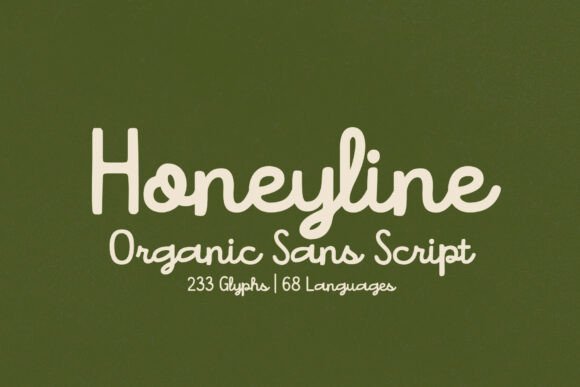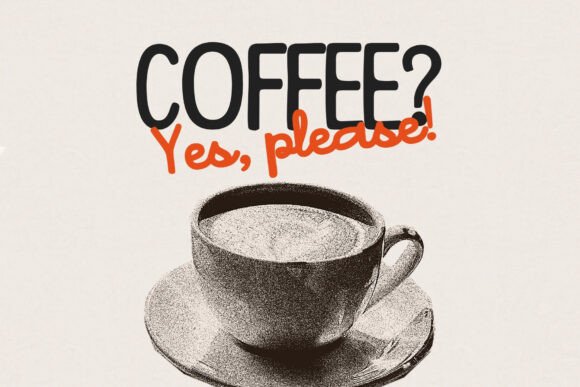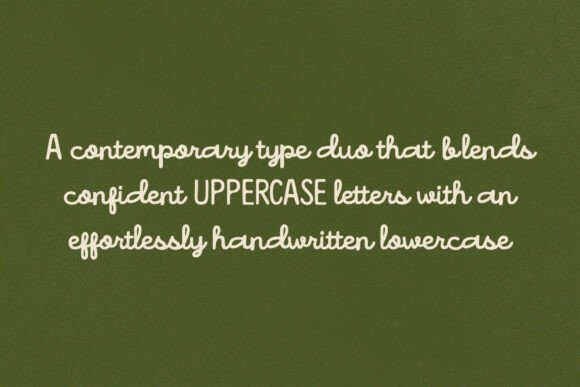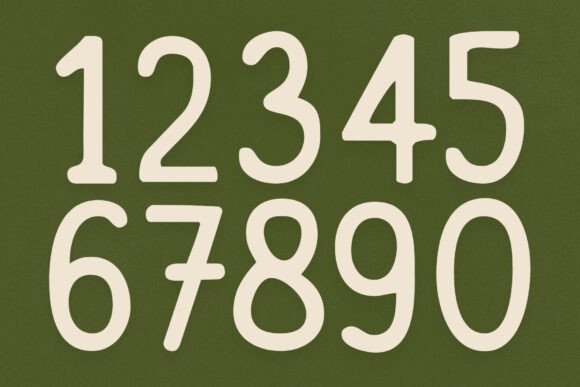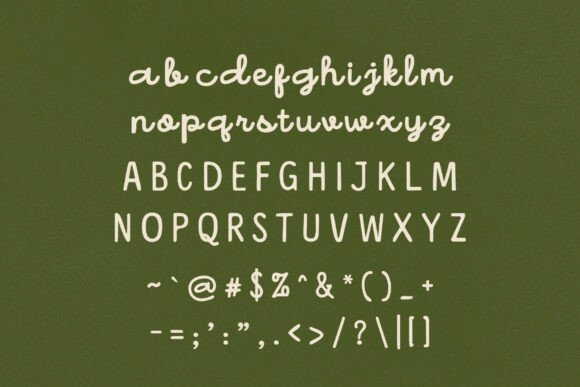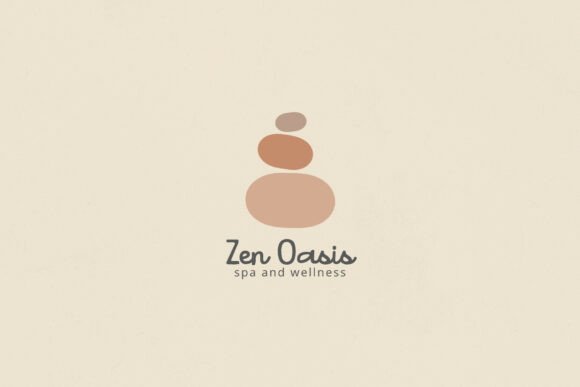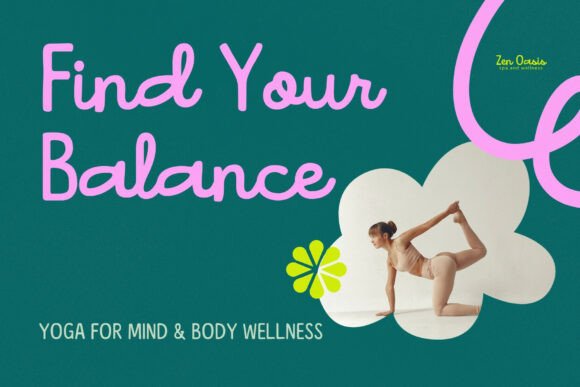
Creating a Buzz: The Honeyline Font
Have you ever been stuck on a design project, struggling to convey the perfect balance between sophistication and approachability? We’ve all been there. It’s a moment of creative frustration, but also an opportunity to discover something new and exciting. That’s exactly what happened when we stumbled upon the Honeyline Font – a contemporary type duo that effortlessly blends confident uppercase letters with an authentic handwritten lowercase.
This versatile font is more than just a pretty face; it’s a valuable tool for designers looking to elevate their branding and visual storytelling. The Honeyline Font adapts seamlessly to various design projects, from lifestyle brands to beauty and wellness, social media content, and hospitality visuals. With its warm and stylish flow, it’s no wonder why designers are buzzing about this talented type duo.
Honeyline Font Key Features
- Font Family: Honeyline is a modern sans-serif font family, designed to be versatile and highly legible.
- Character Count: The font family includes over 500 characters, including Latin, Cyrillic, and Greek alphabets, as well as punctuation and symbols.
- Font Size: Honeyline is available in 6 weights, ranging from Thin to Extra Bold, making it suitable for a wide range of design applications.
- Resolution: Honeyline is designed to be resolution-independent, ensuring it looks great at any screen resolution or print size.
- Unique Characteristics: Honeyline features a unique blend of geometric and organic shapes, giving it a distinctive and modern feel.
Honeyline Font Review
I recently had the chance to dive into the Honeyline Font, and I’m here to share my honest thoughts. ✨
- ✨ Elegant and refined design aesthetic – perfect for modern branding projects
- ✨ Highly legible and versatile, making it suitable for various applications
- ✨ Beautifully crafted alternates and ligatures add an extra layer of sophistication
- ⚠️ Limited language support, which might be a concern for non-English projects
- ⚠️ Some users might find the font too delicate or prone to readability issues in certain contexts
Overall, the Honeyline Font is a solid addition to any designer’s toolkit. While it has its limitations, its strengths far outweigh the weaknesses. The elegant design and refined aesthetic make it perfect for modern branding projects. However, it’s essential to consider the potential limitations, such as limited language support and delicate readability, before using it in more complex projects.
Getting the Most Out of Honeyline Font
For the best results, use Honeyline Font in bold or italic styles to add emphasis to your text.
Experiment with different font sizes and colors to create visual interest and hierarchy in your design.
Honeyline Font is ideal for:
- Home decor and lifestyle design
Alternatives to Honeyline Font
Great Vibes Font is a modern, elegant script font perfect for adding a touch of sophistication to designs. It’s ideal for use in wedding invitations, branding, and other high-end projects where a polished look is desired. Great Vibes Font has a more refined and precise feel compared to Honeyline Font, which has a more playful and handwritten feel.
Lato Font is a clean, sans-serif font that’s perfect for use in digital design, such as websites and mobile apps. It’s highly legible and works well in a variety of contexts, from body text to headings. Lato Font has a more geometric and modern feel compared to Honeyline Font, which has a more organic and handwritten feel.
Carolyna Pro Font is a stylish, modern script font that’s perfect for use in branding, packaging, and other design projects where a touch of elegance is desired. It’s highly customizable and works well in a variety of contexts, from headings to body text. Carolyna Pro Font has a more refined and sophisticated feel compared to Honeyline Font, which has a more playful and casual feel.